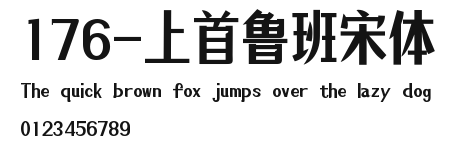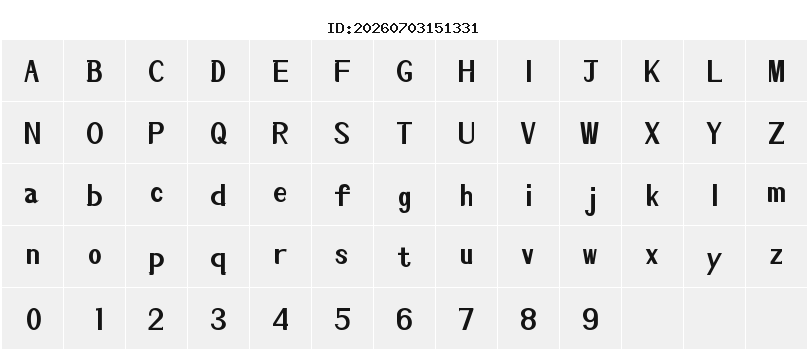
• Font Name: 176-上首鲁班宋体
• Font ID: 176-SS Lu Ban Song Ti:Version 6.00
• Full Font Name: 176-上首鲁班宋体
• Version: Version 6.00 December 25, 2023
• PostScript Name: 176-SSLuBanSongTi
• Character Count: 7569
• Manufacturer: 上首造字
About 176-上首鲁班宋体.ttf
176-上首鲁班宋体.ttf is a modern, elegant sans-serif font designed for ultimate readability and visual harmony. Perfect for branding, headlines, web design, and print materials.